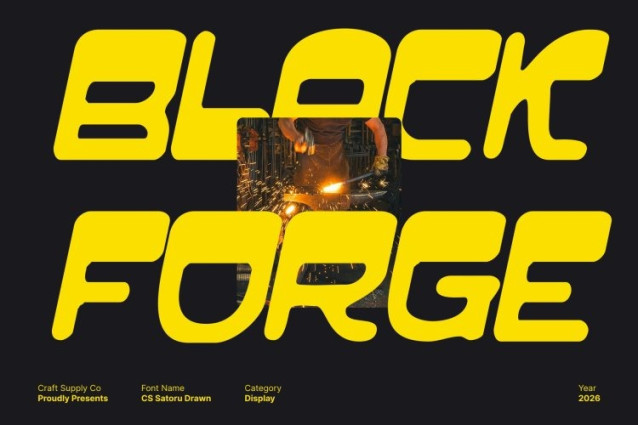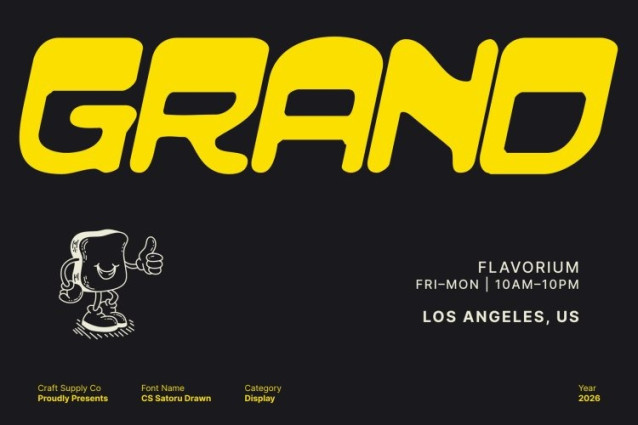
CS Satoru Drawn Font
CS Satoru Drawn Font This is a reverse contrast display font that merges retro character with modern confidence. Its bold letterforms and unexpected weight distribution create a dynamic visual rhythm, giving the font a distinctive personality that feels expressive and eye-catching. The reverse contrast approach adds visual tension while keeping the design balanced and readable.
Modular Structure with a Drawn Character
Built on modular, geometric foundations, this font reflects classic design influences while introducing a hand-drawn texture that softens its structure. The drawn details add warmth and originality, preventing the geometry from feeling rigid. This blend of precision and imperfection results in a font that feels both structured and lively.
Strong Presence for Branding and Editorial Design
This font excels in posters, branding, headlines, and editorial layouts where impact is essential. Its confident form and expressive contrast naturally command attention, making it ideal for designs that need to stand out while maintaining clarity and sophistication.
Retro Spirit with Contemporary Versatility
Capturing the essence of vintage typography with a modern attitude, this font adapts effortlessly across creative applications. From bold branding to promotional materials and experimental layouts, this font delivers a powerful mix of nostalgia, innovation, and drawn personality.